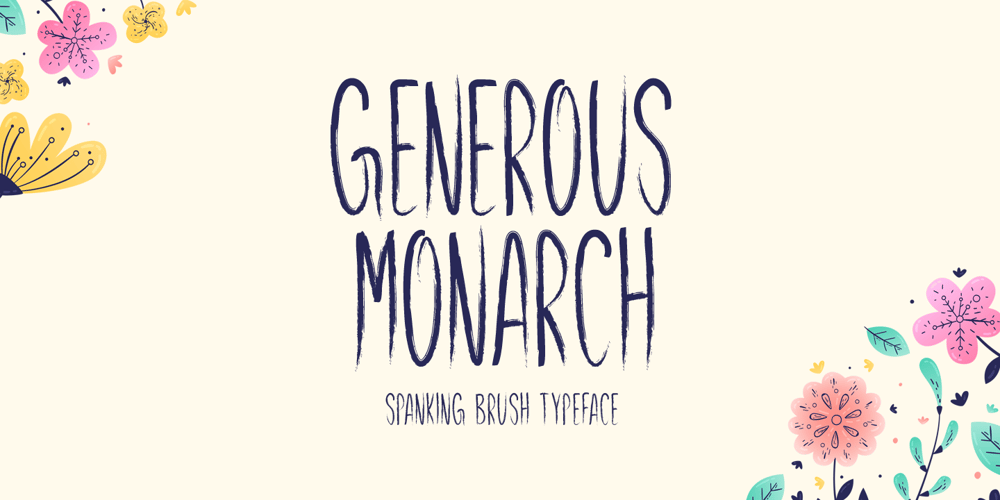
Generous Monarch Font Family was designed by Md Shohail Bhuian and published by Seemly Fonts. Generous Monarch contains 1 styles and family package options. Generous Monarch is a unique and interesting display font. A little bit quirky, this font is a great choice for a wide variety of contexts! It looks stunning on thank you cards, quotes, greeting cards, logos, business cards and every other design which needs a creative spark.